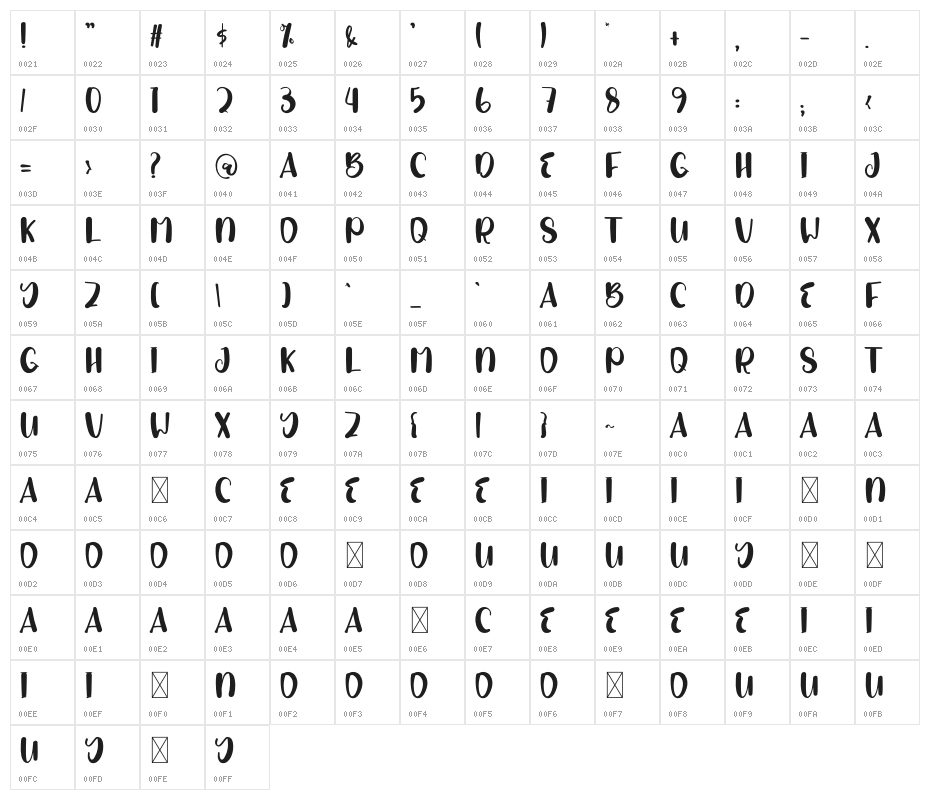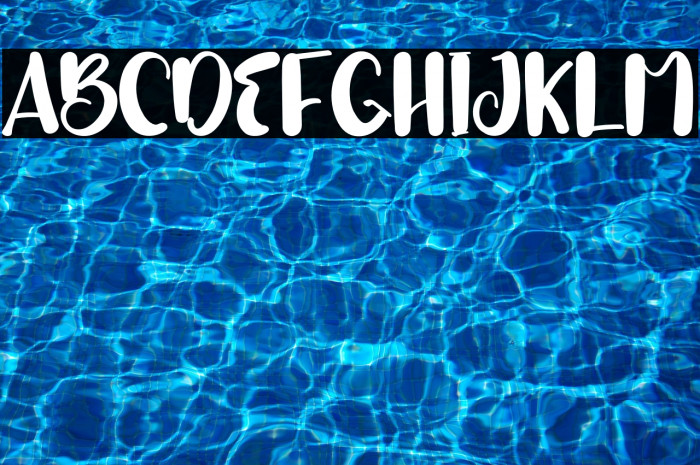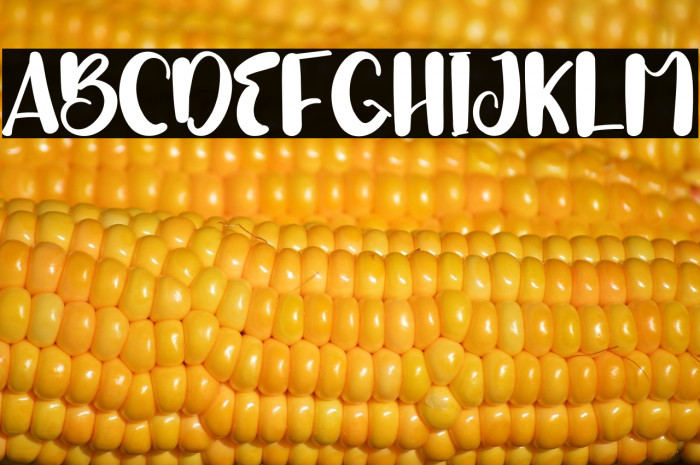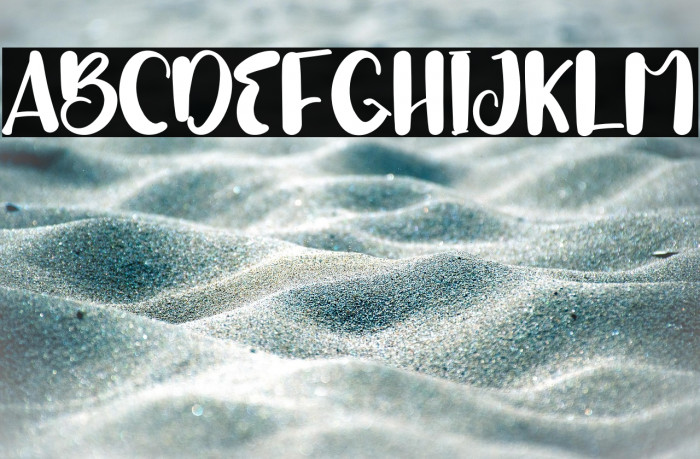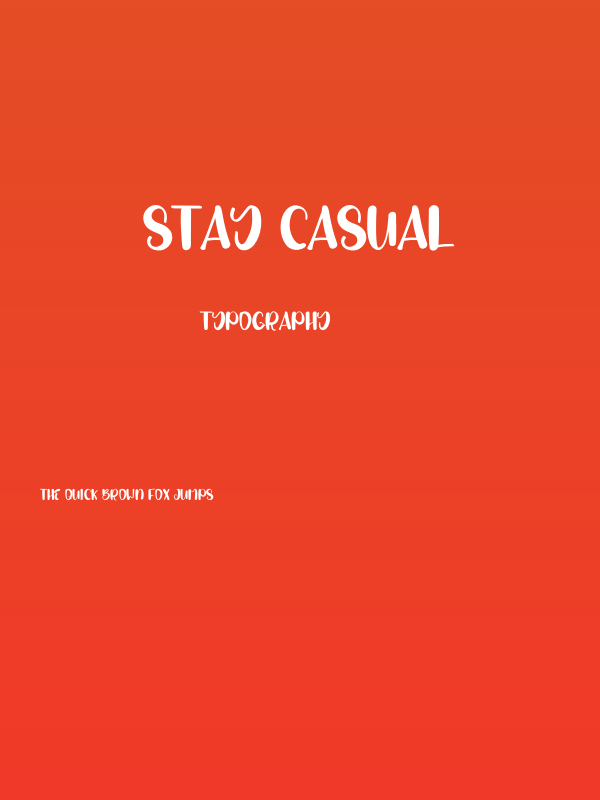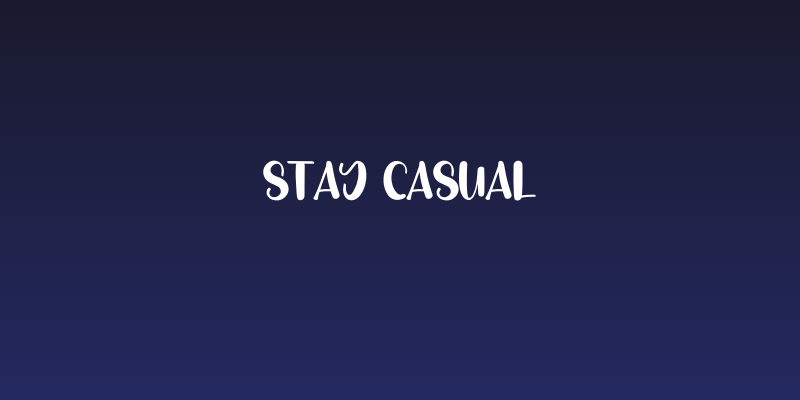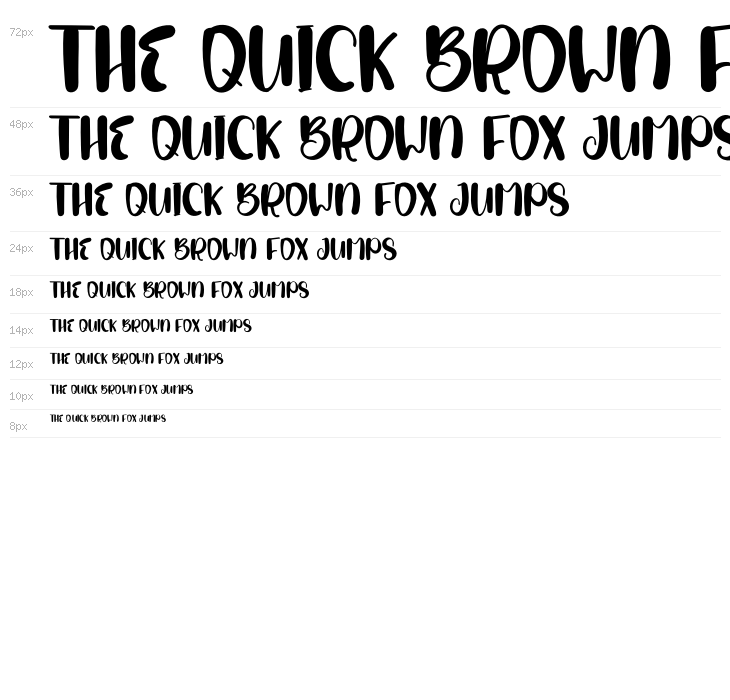
Stay Casual Font
Stay Casual Description
This font exudes a playful and casual vibe, characterized by its bold and rounded letterforms. The strokes are thick and consistent, giving it a strong presence. The letters have a slight slant, adding to the informal and relaxed feel. The uppercase and lowercase letters are well-balanced, with a smooth flow that enhances readability. The numbers and special characters maintain the same playful style, making it versatile for various uses. Overall, this font is perfect for projects that require a fun and approachable aesthetic.
| Proposed Projects | Ideal for children's books, playful branding, casual invitations, and social media graphics. |